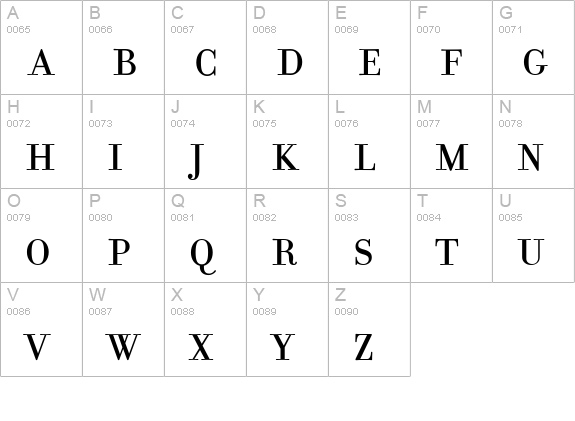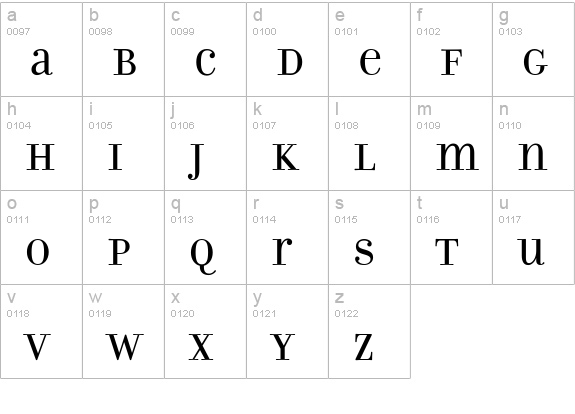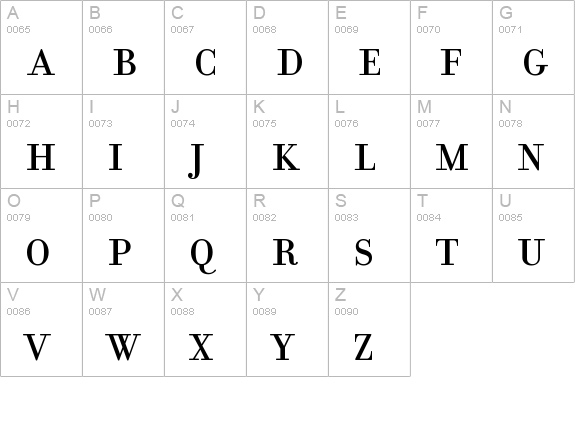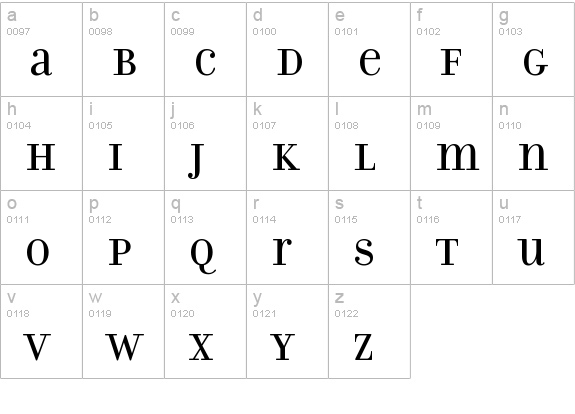
FilosofiaUnicase Font Details
FilosofiaUnicase is a modern and elegant font that seamlessly combines the classic elements of serif typefaces with a contemporary twist. Its unique unicase design gives it a distinct and sophisticated look, making it perfect for a wide range of design projects. The clean lines and balanced proportions of FilosofiaUnicase exude a sense of refinement and professionalism, making it ideal for branding, editorial design, and more. What sets FilosofiaUnicase apart is not only its timeless aesthetic but also the fact that it is freely available to download at FontsMarket.com. This means that you can easily access and use this high-quality font for your personal and commercial projects without any cost. Whether you're creating a logo, designing a website, or crafting a publication, FilosofiaUnicase is a versatile and eye-catching choice that will elevate your work to the next level. Download it today and add a touch of sophistication to your designs!